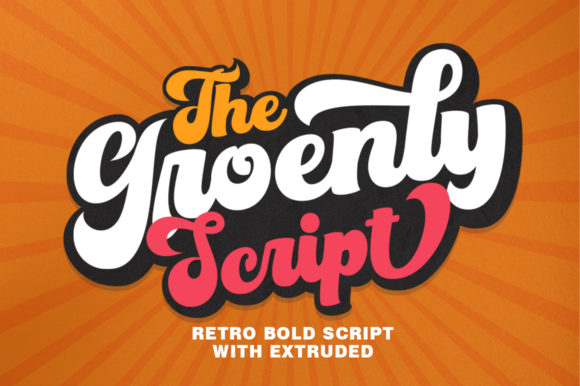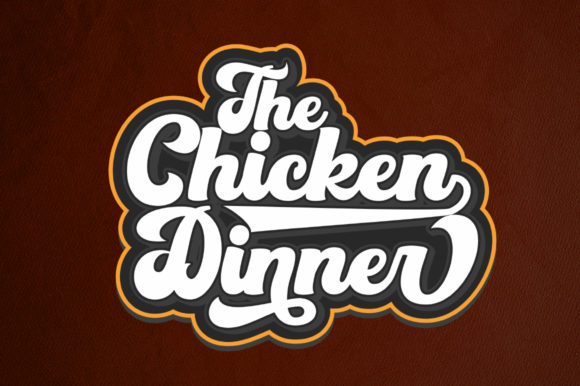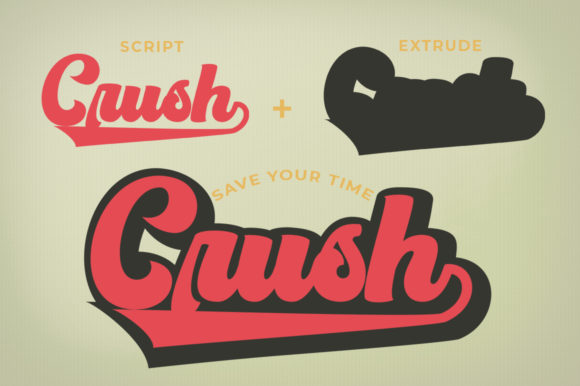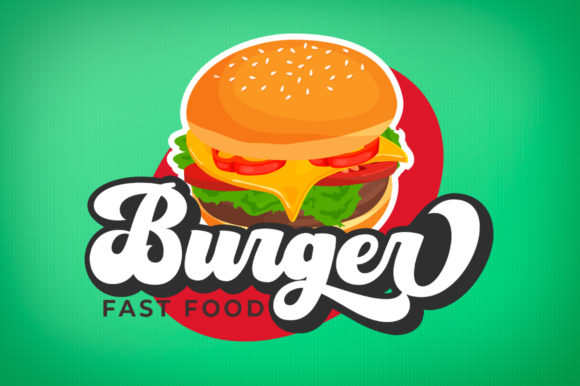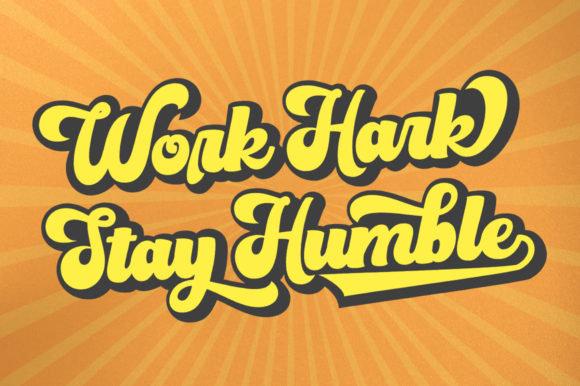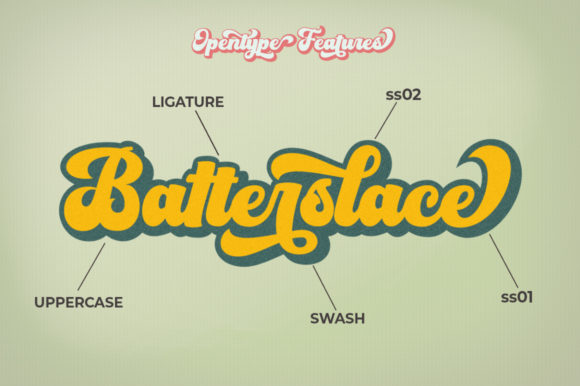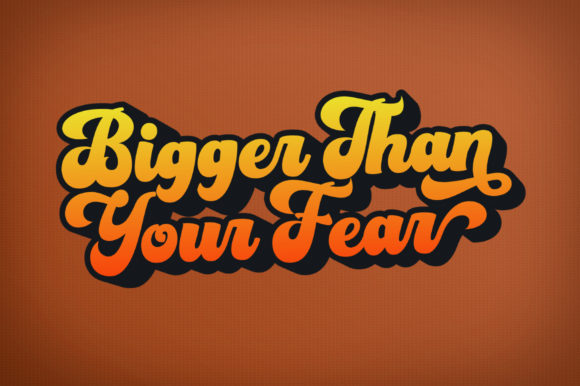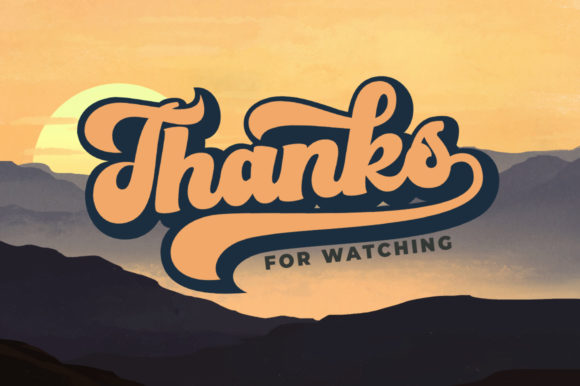
HomeScript FontsGroenly Script Font Script Fonts Groenly Script Font FacebookXPinterestWhatsApp Groenly Script Font Poster 2 Groenly Script Font Poster 3 Groenly Script Font Poster 4 Groenly Script Font Poster 5 Groenly Script Font Poster 6 Groenly Script Font Poster 7 Groenly Script Font Poster 8 About Groenly Script Font The Groenly Script delivers a classic calligraphic style with a retro edge. Get inspired by its groovy feel! DOWNLOAD NOW People also explored Pianka Brush Font Cinnamon Roll Font Cheese Donuts Font Rossa Font Charming Font Apple Font Natasyan Orlandomy Font Algae Font 267 0 TagsGroenly Script Font Previous articlePositive Attitude FontNext articleHello Emillia Font LEAVE A REPLY Cancel reply Comment: Please enter your comment! Name:* Please enter your name here Email:* You have entered an incorrect email address! Please enter your email address here Website: Save my name, email, and website in this browser for the next time I comment. Personal Use Free First Be Lucky Personal Use Free Read more about this font Cataleya Personal Use Free Read more about this font Hello Sarrah Personal Use Free Read more about this font Glowing Personal Use Free Read more about this font BLOG 5 Fonts That Will Dominate Design Trends in 2026 5 Fonts for 2026 That Will Dominate Design Trends Typography plays a critical role in visual communication, and as we look ahead to 2026, it’s... Exploring Font Trends Top 10 Handwritten Fonts That Elevate Your Designs To increase your work productivity, choose the most readable fonts.